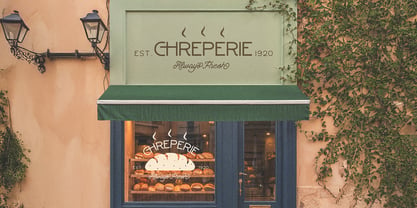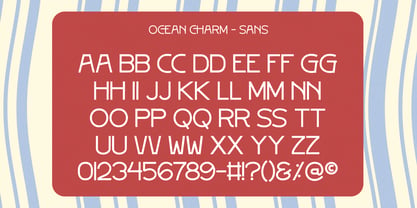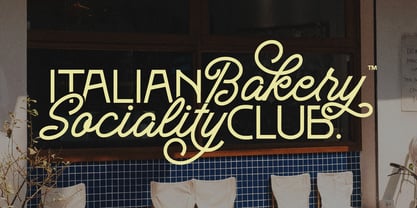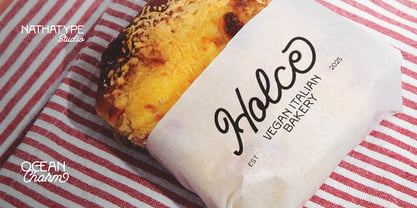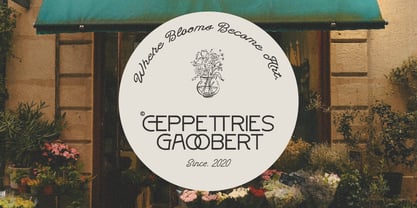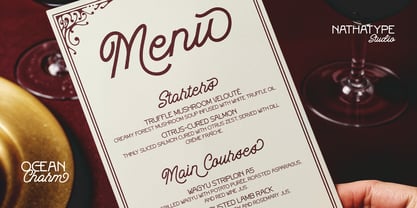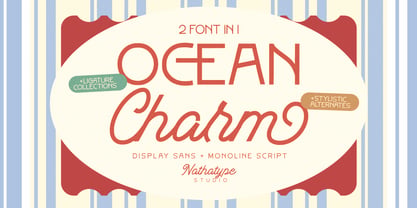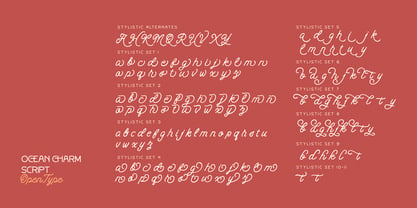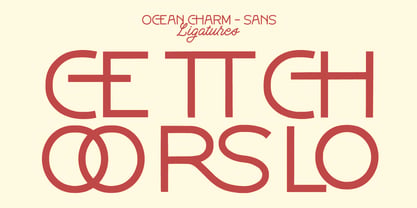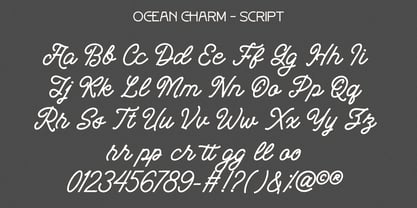
Ocean Charm
par Nathatype
La famille de polices Ocean Charm a été conçue par Donis Miftahudin et publiée par Nathatype. Ocean Charm contient 2 styles et options de package familial. En savoir plus sur cette famille
Ocean Charm is a beautifully balanced font duo that combines a lightweight uppercase display sans font with a graceful monoline script font, creating a harmonious blend of structure and fluidity. Designed to evoke freshness, elegance, and modern charm, Ocean Charm is perfect for designers seeking versatile typography that feels clean, stylish, and effortlessly refined. In addition, enjoy the features here. Features: Alternates Ligatures Stylistic Sets Multilingual Supports PUA Encoded Numerals and Punctuations Ocean Charm fits in logos, invitations, quotes, branding, posters, and many more designs. Find out more ways to use this font by taking a look at the font preview. Thanks for purchasing our fonts. Hopefully, you have a great time using our font. Feel free to contact us anytime for further information or when you have trouble with the font. Thanks a lot and happy designing.